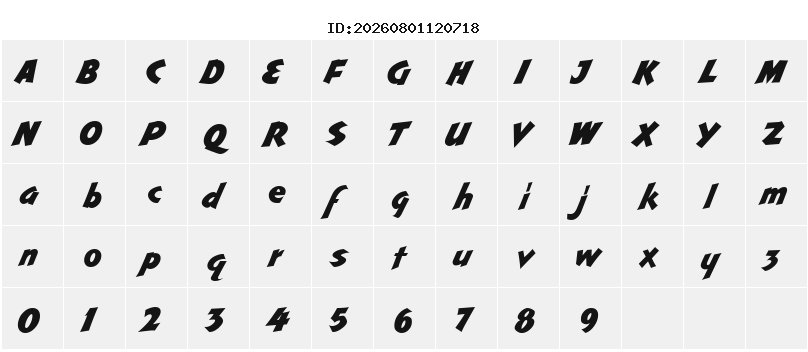
LHF Cincinnati Poster OVERSTROKE Preview
• Font Name: LHF Cincinnati Poster OVERSTROKE
• Font ID: LHF Cincinnati Poster SMOOTH
• Full Font Name: LHF Cincinnati Poster OVERSTROKE
• PostScript Name: LHFCincinnatiPosterOVERSTROKE
About LHF Cincinnati Poster OVERSTROKE.ttf
LHF Cincinnati Poster OVERSTROKE.ttf is a modern, elegant sans-serif font designed for ultimate readability and visual harmony. Perfect for branding, headlines, web design, and print materials.